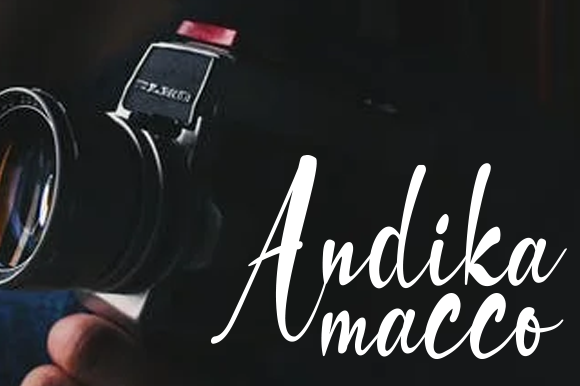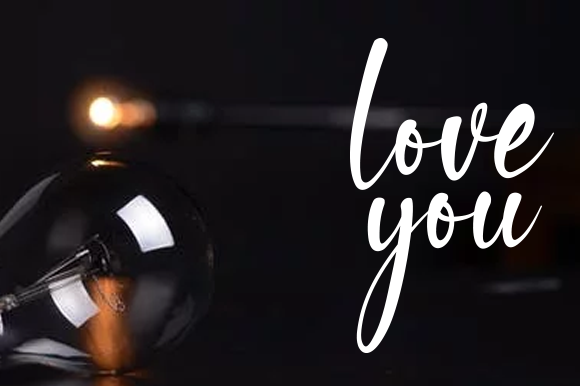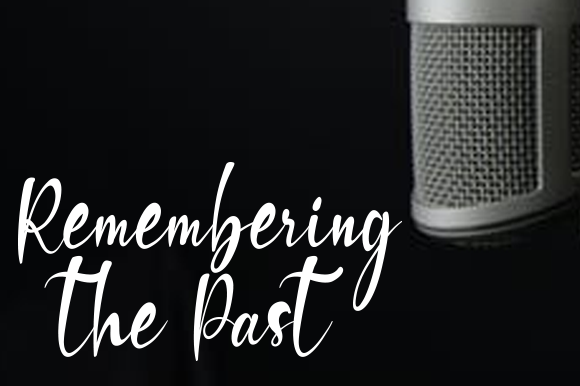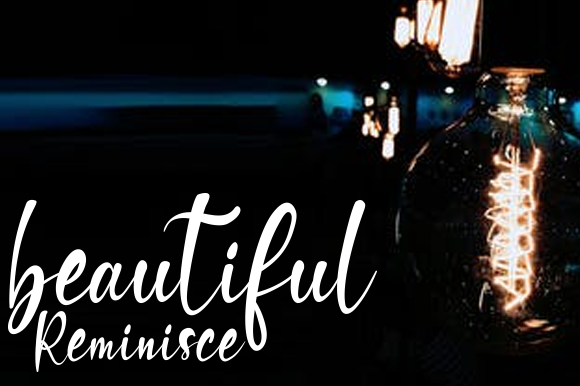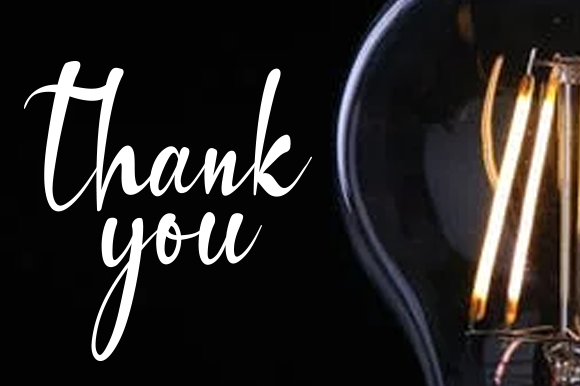
Andika Macco Font
About Andika Macco Font
Andika Macco is a sweet, soft hand-lettered script font. Fall in love with its authentic feel and use it to create gorgeous wedding invitations, beautiful stationary art, eye-catching social media posts, and cute greeting cards.